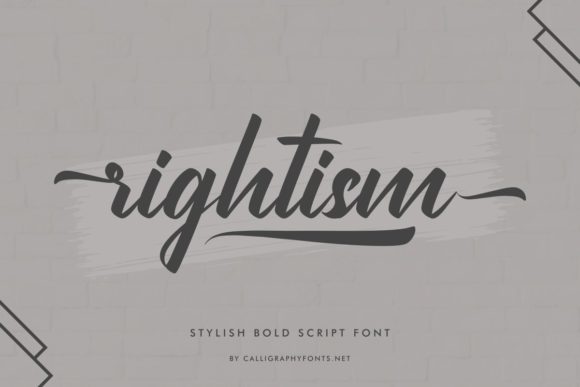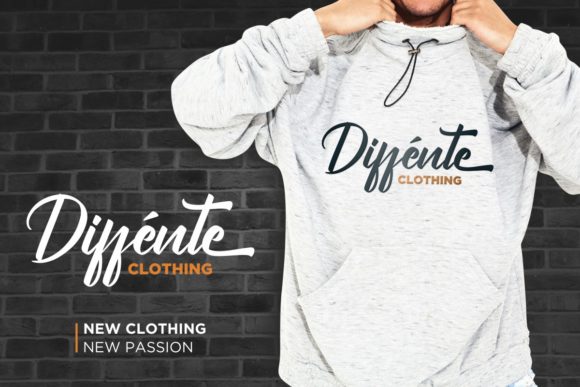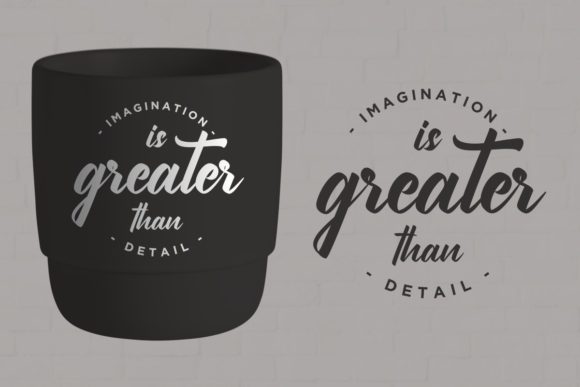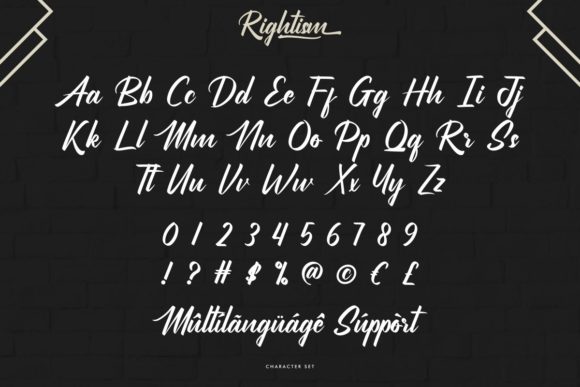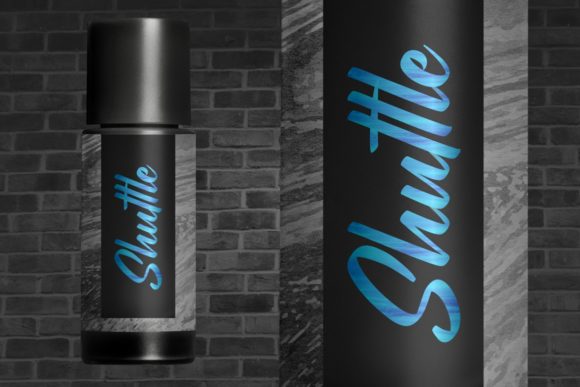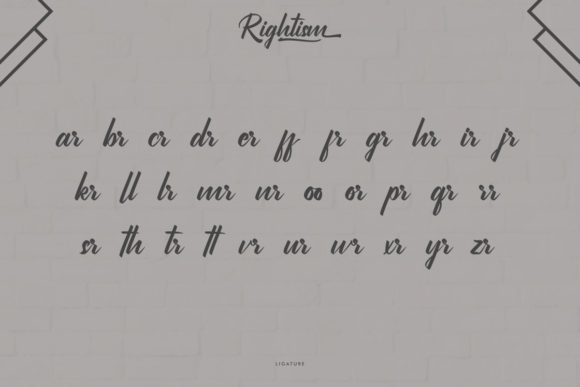
Introduction to Rightism Font
Rightism is an exclusive handwritten brush calligraphy font.
This font will add an elegant and stylish touch to logos, apparel designs, websites, greeting cards, and more PUA encoded glyphs and swashes are included which means you can access them with ease.